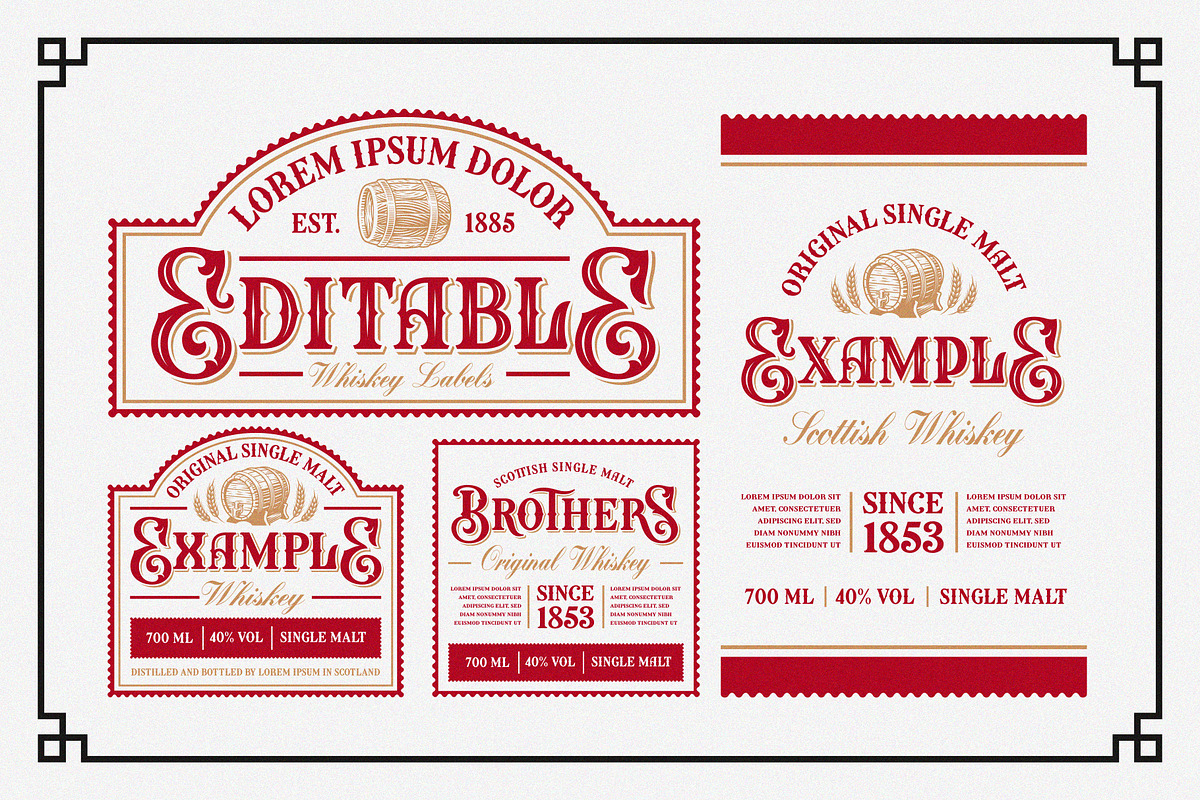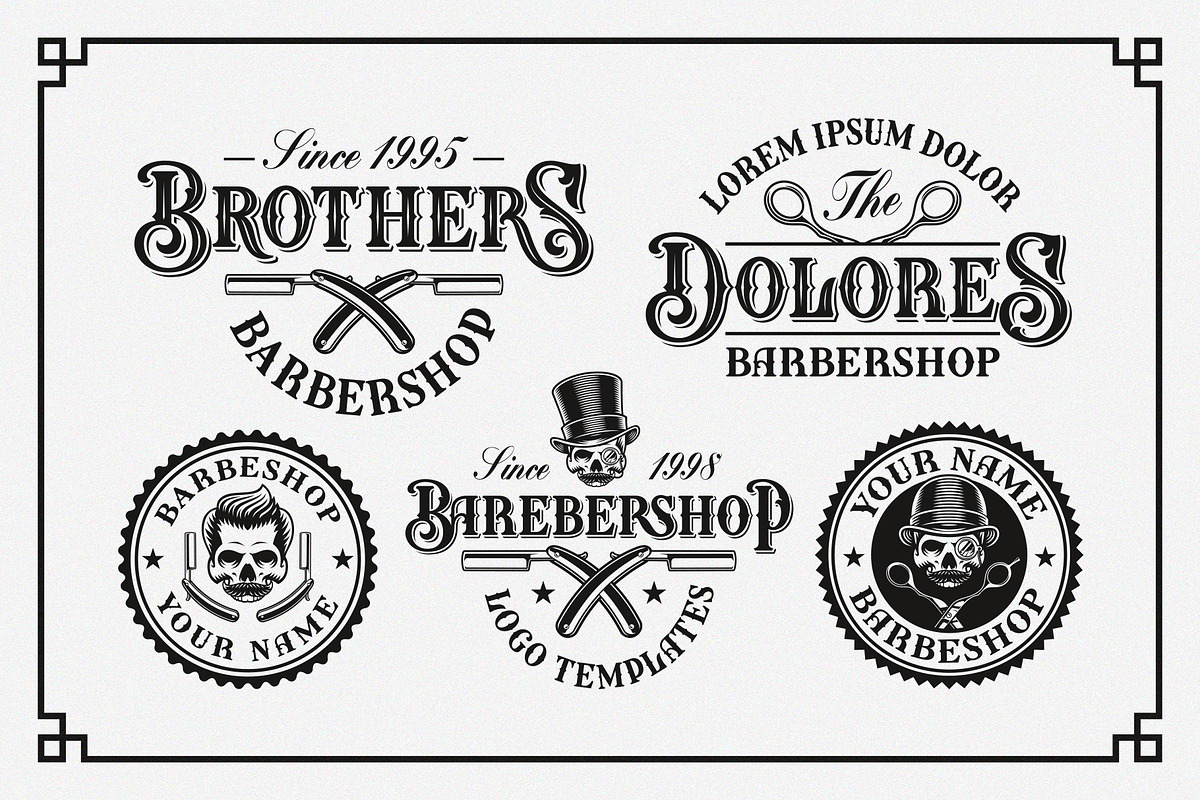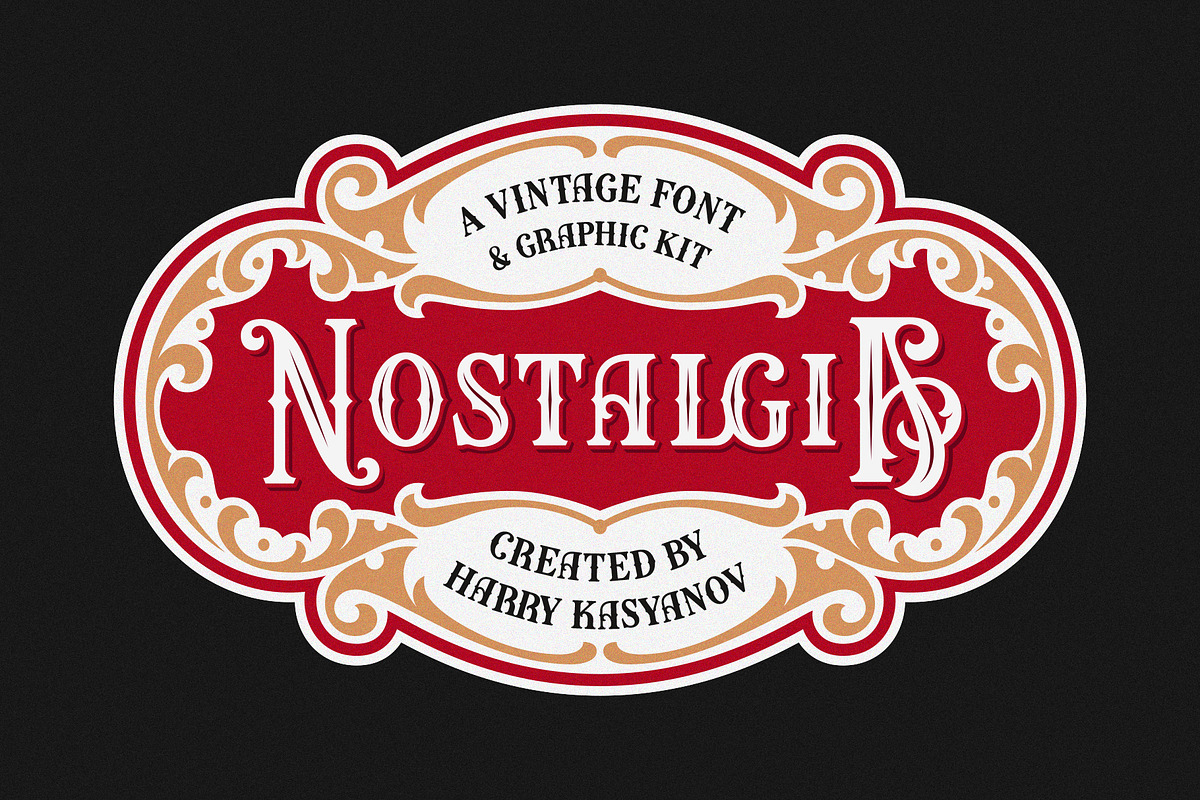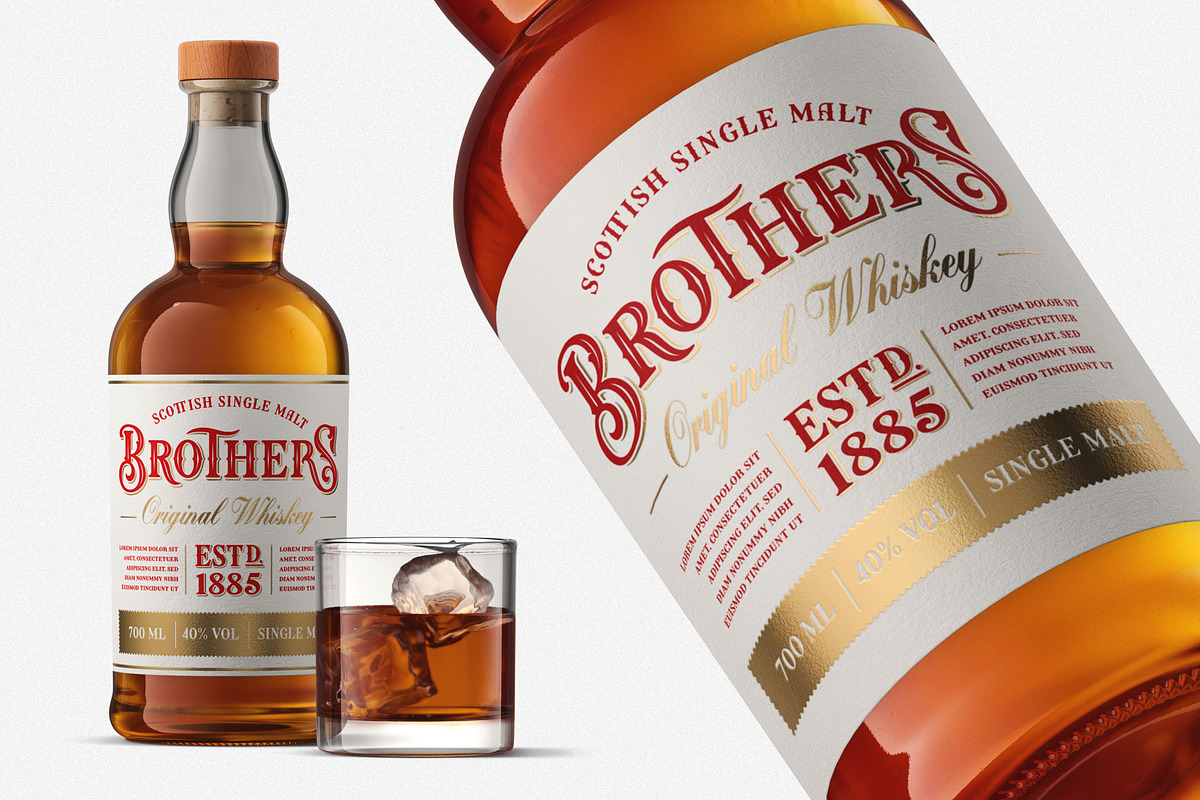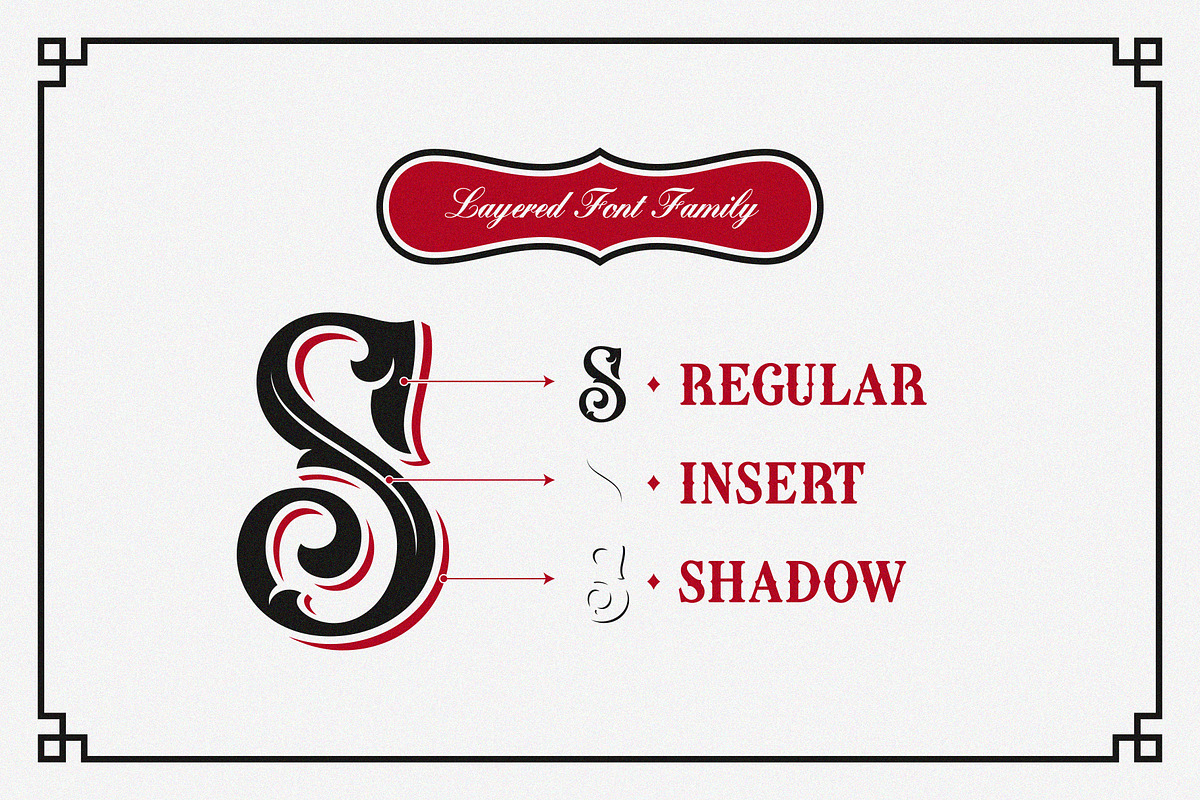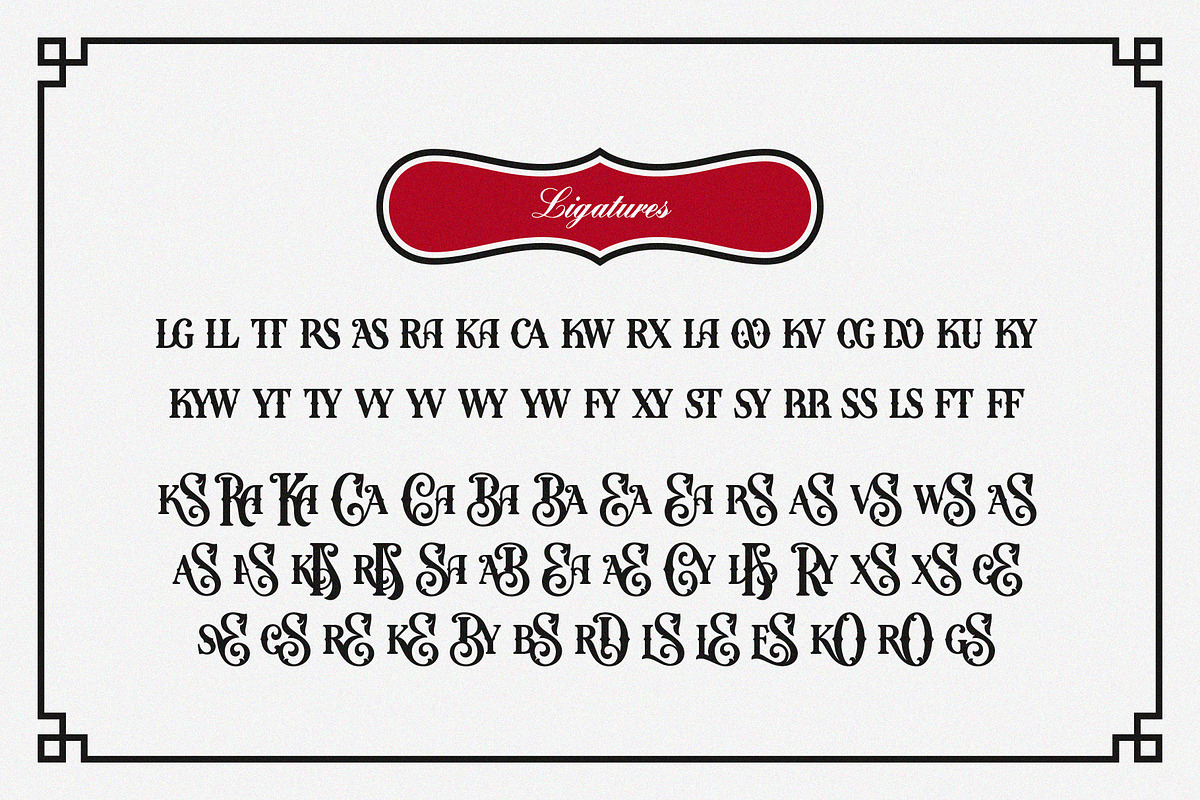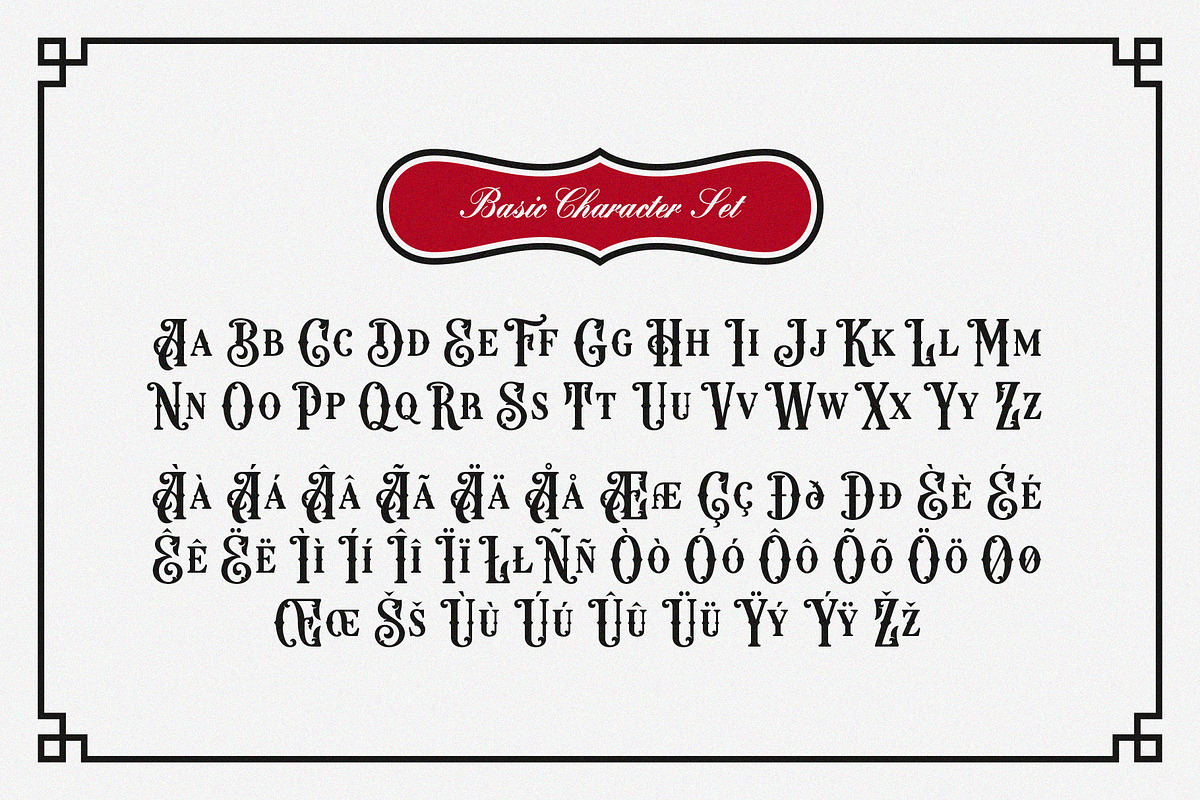
Nostalgia Vintage Font
Nostalgia is a beautiful font family in vintage style with a big set of alternates and ligatures that helps to fill out empty spaces in inscriptions. This font looks better if you use it for short phrases and headlines, but it works well with normal size text as well. Perfect for many creative products such as logos, headlines, packaging, alcohol labels, and etc.
The Nostalgia Font Family includes 3 different styles; Regular, Shadow, and Insert so you can combine them with each other and get fancy headlines. The font includes a full set of characters from a-z for lowercase, A-Z for uppercase, a big set of alternates and ligatures as well as numbers, and minimum punctuations set. This package also includes a Big Graphics Kit as well as Different Design Templates.
- A basic character from A-Z for lowercase and uppercase
- Numbers and punctuations
- Special alternates and ligatures
- Accented characters *(the font supports Western European languages such as; Albanian, Catalan, Danish, Dutch, English, Faroese, Finnish, French, German, Galician, Irish, Icelandic, Italian, Norwegian, Portuguese, Spanish, and Swedish.) ATTENTION ACCENTED CHARACTERS DON'T HAVE ALTERNATES AND LIGATURES.